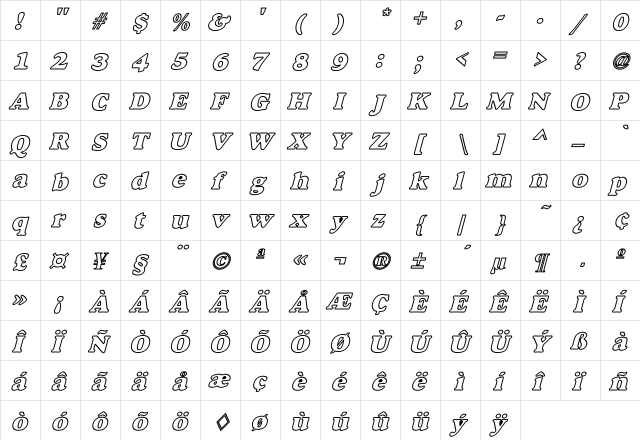
Alexuss Heavy Hollow W_BI Bold Italic
Design Context for Alexuss Heavy Hollow W_BI Typeface
Alexuss Heavy Hollow W_BI is a composed and adaptable typeface that performs quietly and consistently across a wide range of design contexts. Its italic angle brings a sense of urgency and motion to the letterforms. The heavy weight commands attention and anchors typographic hierarchies.
Pro Tip: Try Alexuss Heavy Hollow W_BI for annotation and caption copy alongside an upright companion — the contrast in angle creates a dynamic but ordered typographic system.